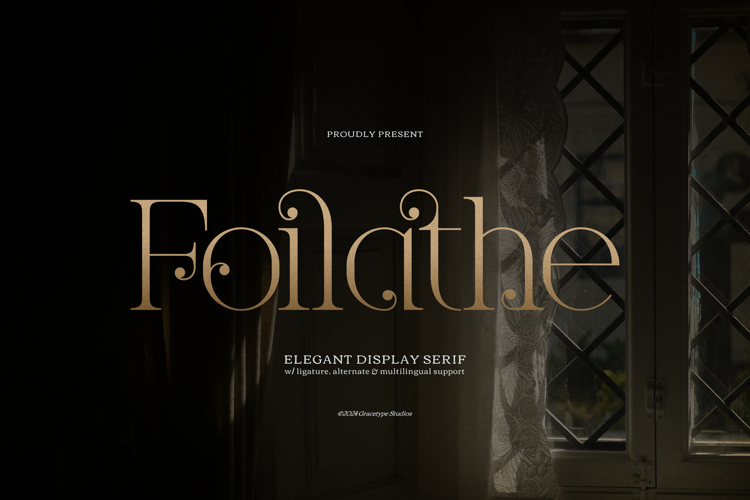
Foliathe Font
Foliathe | Elegant Display Serif is suitable for any projects such as: logos, branding projects, homeware designs, product packaging, mugs, quotes, posters, shopping bags, t-shirts, book covers, name card, invitation cards, greeting cards, label, photography, watermark, special events, and all your other lovely projects that need a Serif taste.